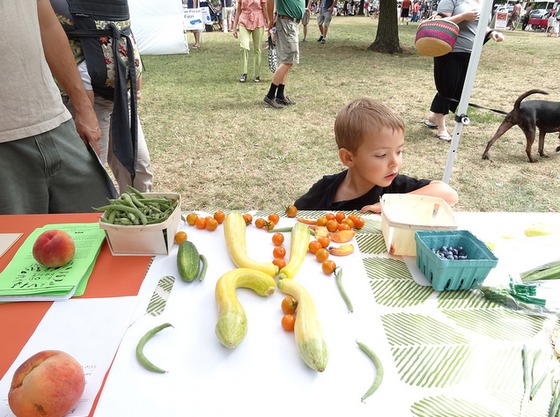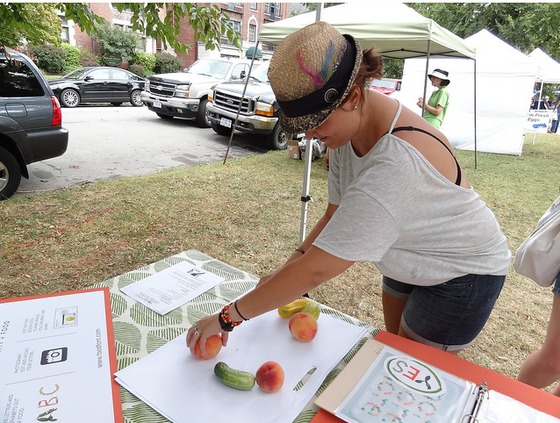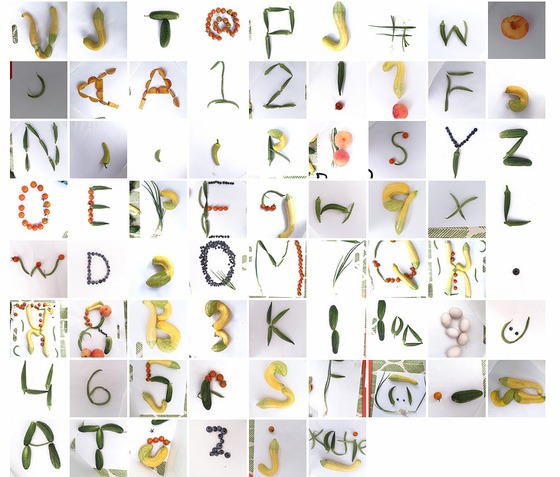
Blueberries, Okra, Buffalo, and Kickstarter!
This has been a busy week!
Food Font had its first farmer market event at the Elmwood-Bidwell Farmers Market in Buffalo, NY. People at the market made a food alphabet out of food from local farms. Food that was used included peaches from Bozard's Farm; squash, onions, tomatoes, beans: from Native Offerings Farm; cucumbers, okra from Winter Farms and blueberries from Erdle farm.
Before the end of the event the entire list of letters, numbers, and characters got done. People still stopped by to make letters – so we ended up with some extra Q’s and A’s (and maybe some extra P’s.) The alphabet shows the mood of the event – upbeat, creative, and curious. There are some really elegant letters and numbers that were made. People really took some time in crafting a letter, carefully adjusting blueberries, okra, or picking out the right green bean.
This upcoming weekend Food Font will be at Weaver Street Market in Carrboro, NC where people will be making a Food Font out of peppers from a local farm.
If you are thinking about what kind of food you would like to use in the Food Font interactive tool, why not make a food alphabet yourself? Resources were recently updated on the Food Font website that can help guide you through the process of how to setup an event or make an alphabet. Directions for making a food font, uploading your pictures, and promotional materials are all on the site to help you make a food font.
Soon Everyone will all be able to play and write with our food.